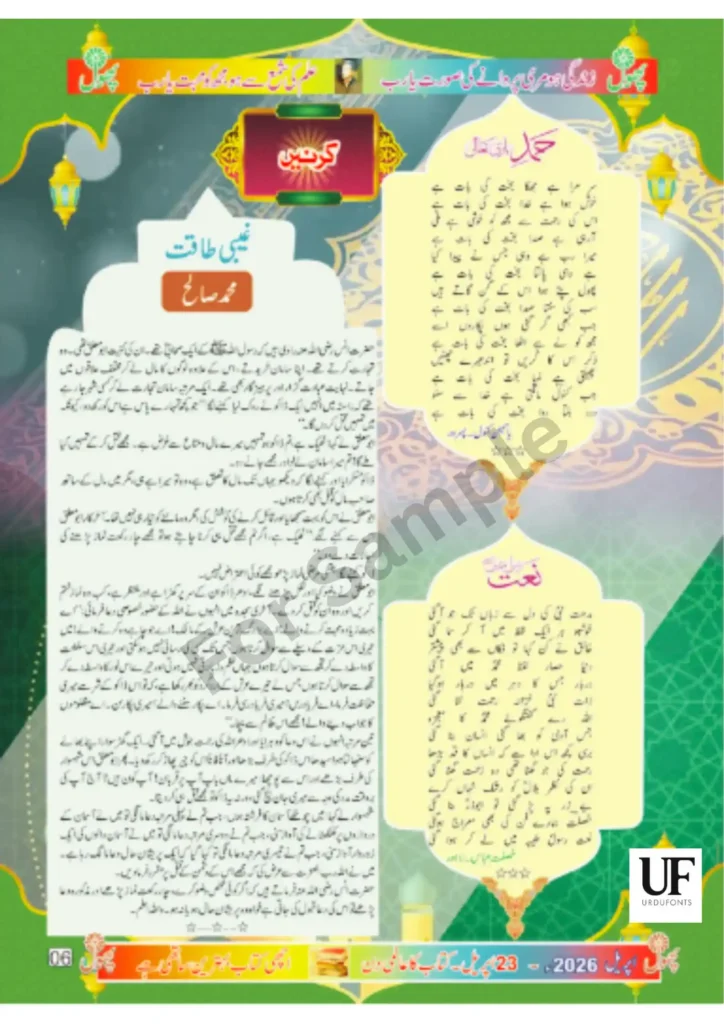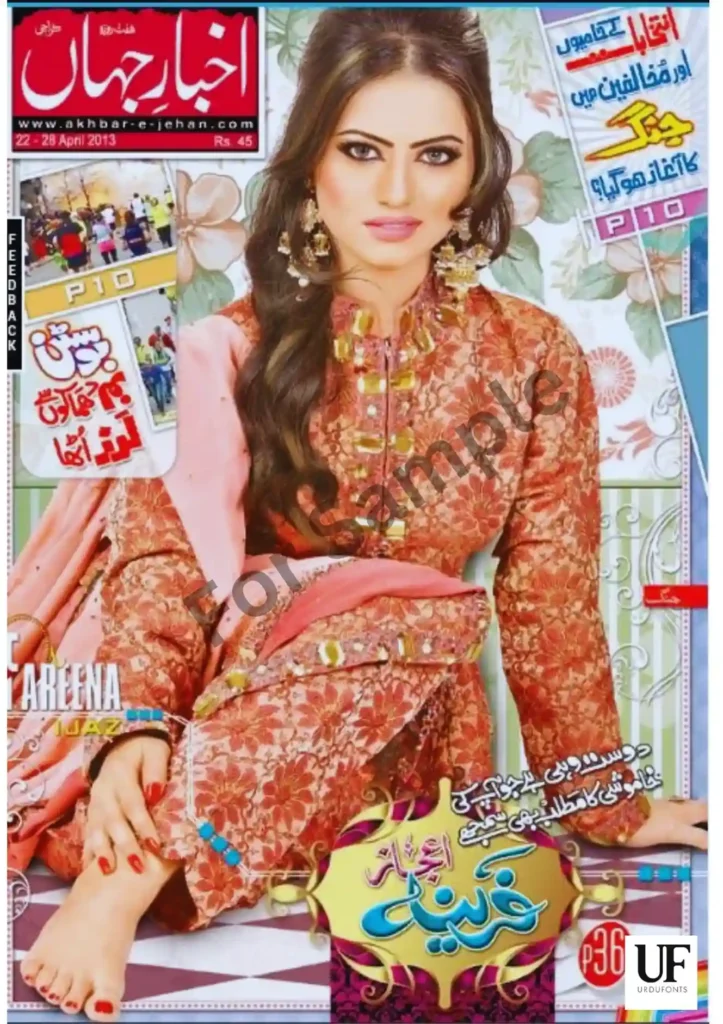
Best Urdu fonts for magazines - professional fonts for headlines, body text, and captions
Best Urdu Fonts for Magazines – Complete Guide 2026
A magazine needs a font system, not one font: a display face for covers and headlines, a readable body face for long features, a compact face for captions, and genre voices for fashion, news and Islamic content. The ten picks below are chosen by magazine role — what each font does on a real page — with the criteria, layout tips and fixes a magazine editor actually needs.
What Makes a Font Good for Magazines
• Role clarity: headlines need impact at large sizes, body text needs hours of comfortable reading, captions need legibility at tiny sizes — one font rarely does all three.
• Pairing behaviour: the display face and the body face must sit on the same spread without clashing — Nastaliq display with Naskh body is the classic magazine pairing.
• Genre voice: a fashion spread, a news analysis and an Islamic feature want different moods — the picks below are grouped by the magazine genre they suit.
• Reproducibility: magazine fonts must survive print and screen editions alike; Unicode fonts do, legacy fonts do not.
Urdu family magazine cover mockup showing display and body typography
A magazine cover uses display typography for the masthead and headlines — the role fonts play in the picks below.
Top 10 Urdu Fonts for Magazines
1. Jameel Noori Nastaleeq — the editorial body standard
For long magazine features, Jameel Noori Nastaleeq is the expected editorial voice — readers trust it for articles the way they trust it for newspapers.
Jameel Noori Nastaleeq Urdu font preview
Jameel Noori Nastaleeq — the standard Urdu editorial face.
2. Shamsheer Unicode — the clean headline cutter
Where Jameel is calligraphic, Shamsheer Unicode is plain and informational — ideal for news-section headlines and subheads that must read instantly.
Shamsheer Unicode Urdu font preview
Shamsheer Unicode — plain, fast-reading headlines.
3. Urdu Naskh Unicode — long-article comfort
Multi-page features and interviews read easiest in Urdu Naskh Unicode — a calm Naskh that never tires the eye, and light enough for digital editions.
4. Tehreer Regular — the modern magazine voice
Lifestyle and youth titles that want a contemporary feel use Tehreer Regular — modern without being trendy, with 689 verified glyphs behind it.
Tehreer Regular Urdu font preview
Tehreer Regular — the contemporary magazine face.
5. UL Noreen Bold — subheadings with hierarchy
UL Noreen Bold gives section breaks the weight they need — subheadings, pull-quotes and kickers that structure a feature.
UL Noreen Bold Urdu font preview
UL Noreen Bold — weight for subheadings and pull-quotes.
6. Zohra Unicode — fashion spreads
Fashion and beauty pages want elegance; Zohra Unicode brings a softer, decorative hand that suits glossy spreads.
Urdu fashion magazine spread mockup with elegant typography
Fashion spreads pair decorative display type with airy layouts.
7. UL Sajid Heading — section headers
Purpose-built for headings, UL Sajid Heading marks sections, columns and recurring departments with a consistent masthead-like voice.
8. SF Koonj Regular — lifestyle features
For lifestyle, food and travel features, SF Koonj Regular reads warm and personal — a friendlier alternative to the formal editorial faces.
9. UL Amjad Regular — Islamic magazine body
Islamic monthlies need a dignified, steady body face; UL Amjad Regular carries religious features without decoration competing with the content.
Urdu Islamic magazine cover mockup with traditional typography
Islamic monthlies favour dignified, traditional typography.
10. Tafseer Regular — religious and scholarly content
For exegesis, scholarly columns and quoted texts, Tafseer Regular gives the classical, serious register such pages need.
• Print editions: test headlines at final size on paper — Nastaliq display faces need generous leading; embed all fonts in the print PDF.
• Digital editions: prefer lighter files (Naskh Unicode, Tehreer) for fast loading; check reflow on phones before publishing.
• Licence: magazine publishing is commercial — verify each font’s licence covers periodicals before the first issue.
Design Tips for Magazine Layout
• Two faces per spread, max: one display + one body; a third only for captions.
• Contrast by weight and style, not colour alone: Nastaliq headlines over Naskh body is the classic Urdu magazine rhythm.
• Captions at 8–9pt: test caption faces at final size — decorative faces fail here; plain ones win.
• Pull-quotes in the display face: reuse the headline font for pull-quotes to tie the spread together.
Which Urdu font is best for magazine headlines?
A display face with impact: Shamsheer Unicode for clean news headlines, Tehreer Regular for modern titles, or a decorative face like Zohra for fashion spreads.
How do I keep magazine fonts consistent across issues?
Define the three-face system (display, body, caption) as a style template in your layout app and reuse it — readers learn a magazine’s typographic voice quickly.